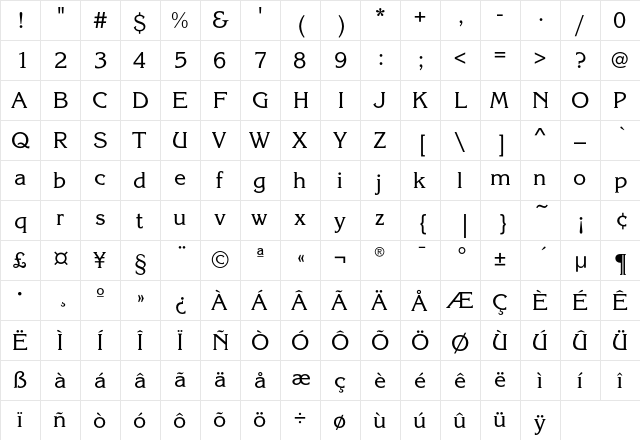
KorinnaEF-Regular Regular
Design Context for KorinnaEF-Regular Typeface
KorinnaEF-Regular takes a measured approach to typography — its balanced proportions and neutral character make it a reliable workhorse for both digital and print work.